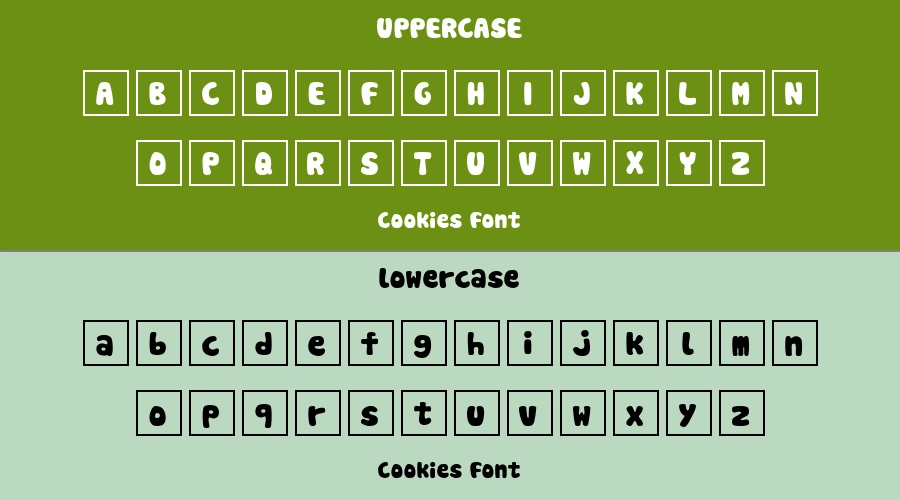
About Cookies Font
Designed with precision, Cookies Font merges balanced tension with design harmony in every character. This versatility makes it particularly effective for billboard design, where precision and cultural relevance directly impact communication quality. Each letterform demonstrates meticulous craftsmanship.
Technical excellence shines through elements like curved brackets and proportional figures, enhancing typographic versatility. In product names settings, Cookies Font proves its worth through superior personality transfer. The thoughtful execution of ascender height and technical innovation ensures professional results.